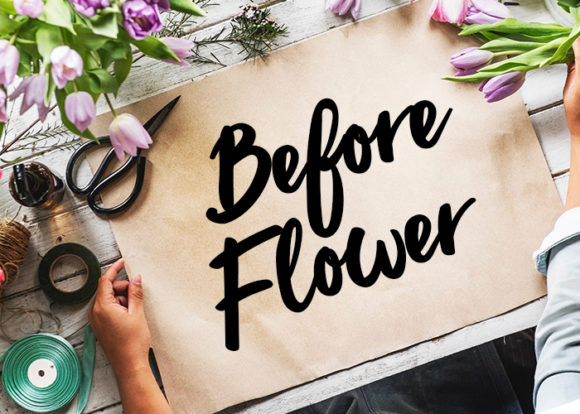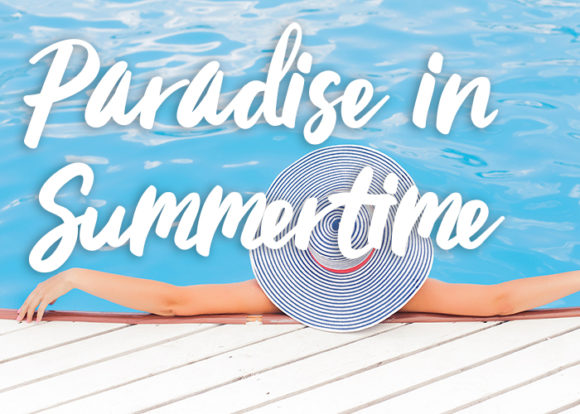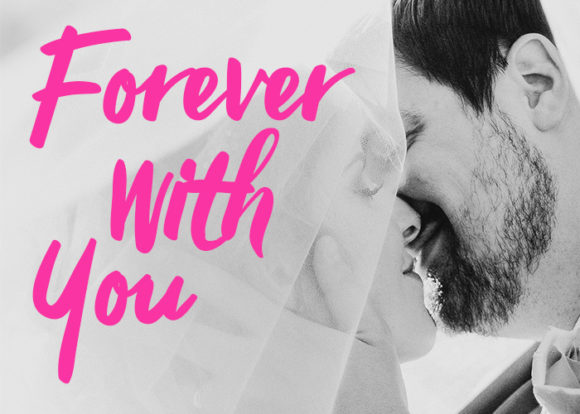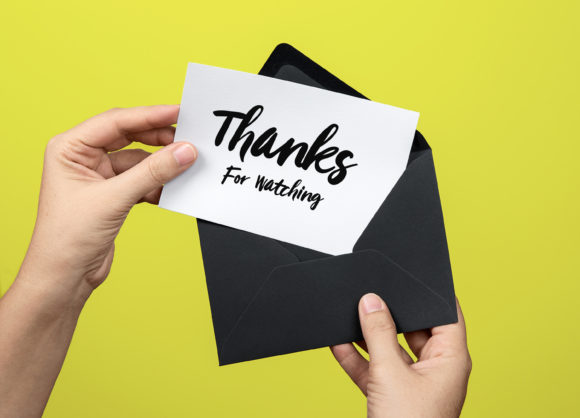
Introducing Artelis Font: Elevate Your Designs with Elegance
In the world of design, typography plays a crucial role in conveying messages, expressing creativity, and capturing attention. For designers and crafters seeking a unique and elegant touch, the Artelis font is an exceptional choice. This beautiful handwritten font boasts an unparalleled style, characterized by its fluid movements and sophisticated charm. Whether you’re working on branding projects, logos, wedding designs, social media posts, advertisements, product packaging, or any other visual creation, Artelis is poised to add a striking touch that sets your work apart.
The Unique Charm of Artelis Font
The Artelis font is distinguished by its elegant movement, which lends a sense of dynamism and grace to any design. Its unique style is not just a mere addition to your typography options; it’s an invitation to explore new dimensions of creativity and expression. With Artelis, designers can craft visually compelling content that resonates with their audience on a deeper level. The font’s versatility is one of its most appealing features, making it suitable for a wide range of applications, from luxurious branding and sophisticated wedding designs to impactful social media posts and eye-catching advertisements.
Applications of Artelis Font
The versatility of Artelis font makes it an invaluable asset for designers across various projects:
- Branding Projects: Establish a memorable brand identity with a font that exudes elegance and sophistication.
- Logos: Create a lasting impression with a logo that stands out, thanks to Artelis’s unique and captivating style.
- Wedding Designs: Add a touch of romance and luxury to wedding invitations, decorations, and other related materials.
- Social Media Posts: Elevate your social media presence with engaging and aesthetically pleasing content.
- Advertisements: Capture attention and convey your message effectively with a font that commands respect and admiration.
- Product Packaging: Make your products stand out on the shelves with packaging that features elegant and sophisticated typography.
- Product Designs: Incorporate Artelis into your product designs to add an element of style and refinement.
- Labels: Whether for products, files, or any other use, Artelis font labels are sure to leave a mark.
- Photography: Use Artelis as a watermark or in photo captions to add a professional and artistic touch.
Why Choose Artelis Font?
Choosing Artelis font for your design projects comes with numerous benefits:
- Elegance: It adds a level of sophistication that is hard to achieve with standard fonts.
- Versatility: Suitable for a myriad of design applications, ensuring you have a go-to font for various projects.
- Uniqueness: Stand out in a crowded design landscape with a font that is both distinctive and memorable.
- Easy to Read: Despite its elegant and handwritten nature, Artelis maintains readability, making it practical for both digital and print designs.
Tips for Using Artelis Font Effectively
To maximize the impact of Artelis font in your designs, consider the following tips:
- Pair with Complementary Fonts: For optimal results, pair Artelis with fonts that complement its elegance without overpowering it.
- Adjust Size and Color: Experiment with different sizes and colors to ensure the font aligns with your design’s hierarchy and aesthetic.
- Consider the Context: Tailor your use of Artelis to fit the project’s tone and audience, ensuring the font enhances rather than detracts from your message.
Artelis font is more than just a typography option; it’s a design statement. Its elegant movement, unique style, and versatility make it an indispensable tool for designers and crafters aiming to create visually stunning and impactful designs. Whether you’re embarking on a branding project, crafting a memorable logo, or simply looking to elevate your social media posts, Artelis font is poised to bring a touch of grace and sophistication to your work. Explore the creative possibilities with Artelis and discover how this beautiful handwritten font can transform your designs.